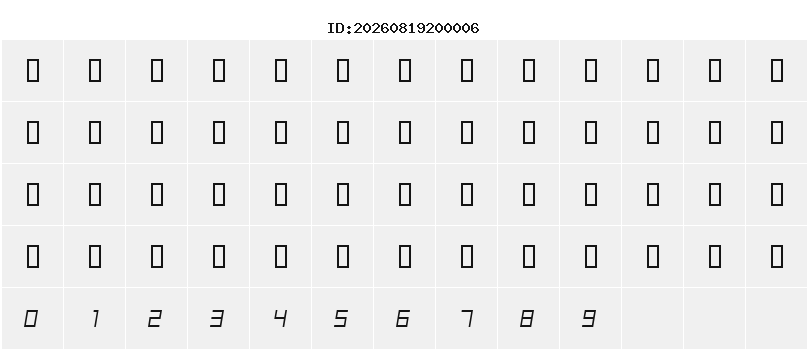
Shimshon Light Oblique Preview
Shimshon Light Oblique.ttf is a modern, elegant sans-serif font designed for ultimate readability and visual harmony. Perfect for branding, headlines, web design, and print materials.